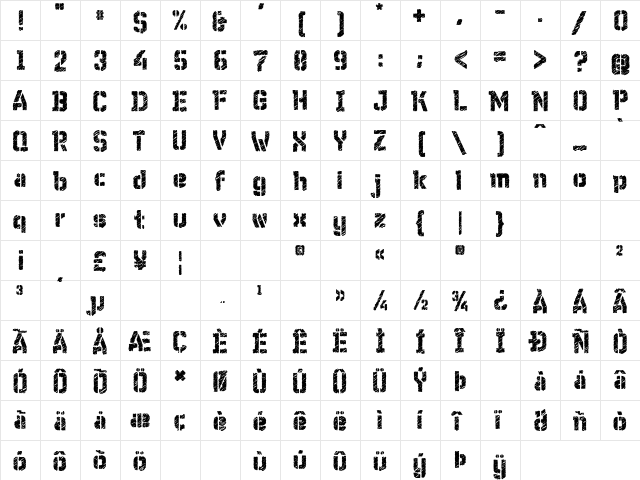
WC Wunderbach Rough Bta DemiBold
Design Context for WC Wunderbach Rough Bta Typeface
WC Wunderbach Rough Bta embraces imperfection — its rough, textured character adds raw authenticity to designs that want to feel lived-in and unconventional.
Suited to punk-influenced zines, underground music branding, streetwear, and raw, anti-corporate design.
Pro Tip: Pair WC Wunderbach Rough Bta with intentionally raw or lo-fi design elements. Fighting against it with overly polished surroundings will undermine its personality.